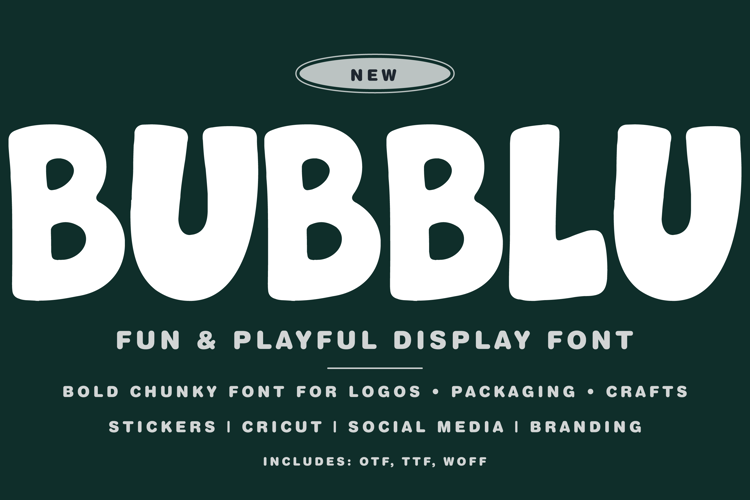
BUBBLU Font
🎨 Font Name: BUBBLU by Minimalist Art Studio
🎨 Font Description: Voltage is a tall, condensed sans serif font in Regular and Italic styles—perfect for bold headlines, modern branding, tech interfaces, and minimalist layouts; free for subscribers and built to energize your design flow.